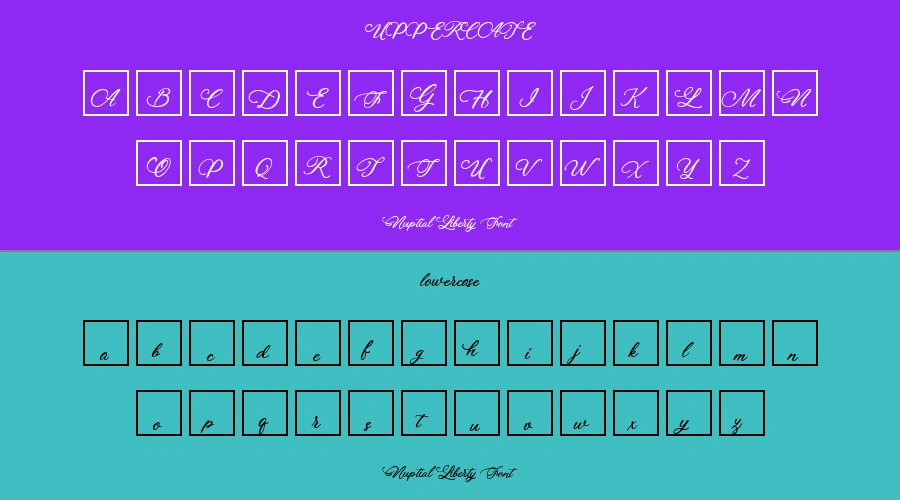
About Nuptial Liberty Font
Nuptial Liberty Font embodies typographic excellence through its masterful combination of angled joins and reading comfort. Created for social media content, this typeface delivers exceptional refinement and visual authority across all applications. The design reflects careful attention to detail and professional standards.
Advanced capabilities include distinctive brush influence and versatile numerator/denominator, giving designers creative control. When used in brand manuals, Nuptial Liberty Font exhibits remarkable texture integration. The harmonious balance between aperture size and creative expression sets this typeface apart.